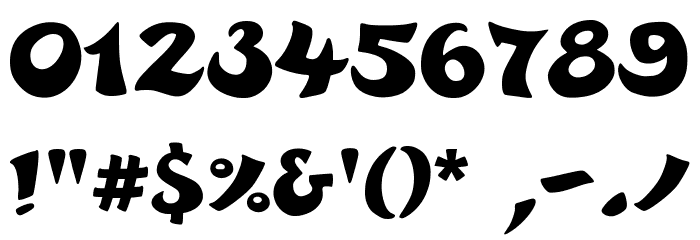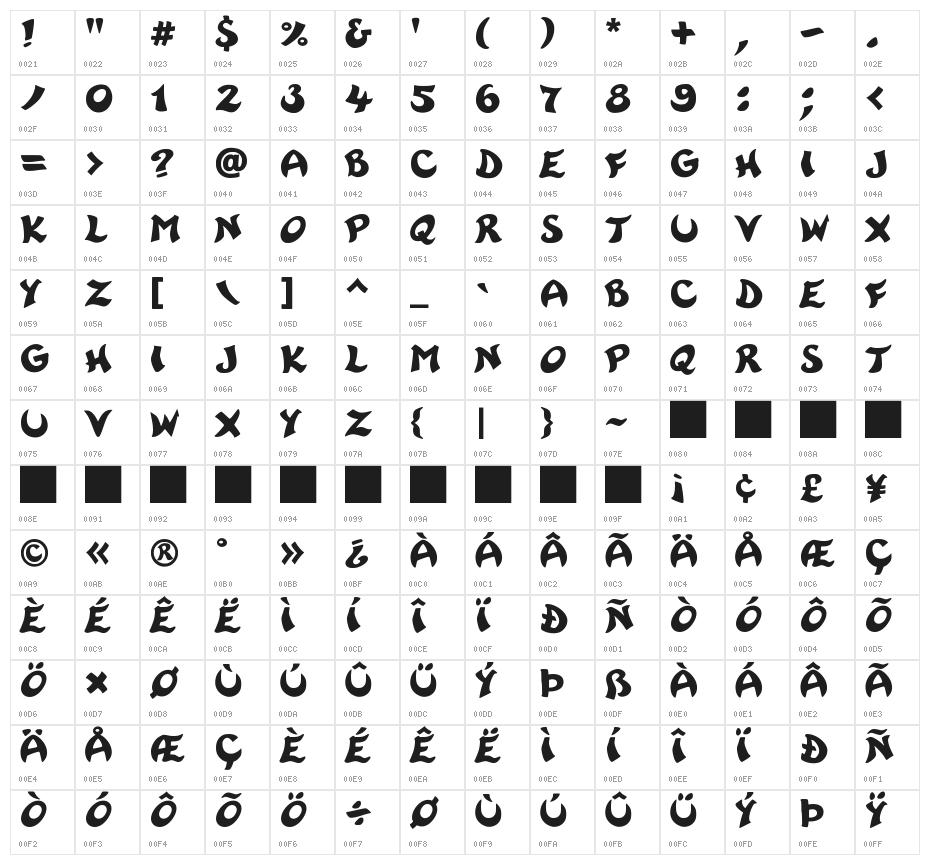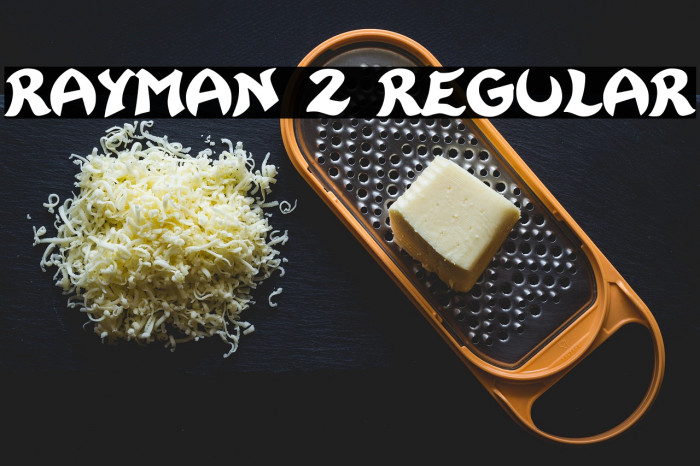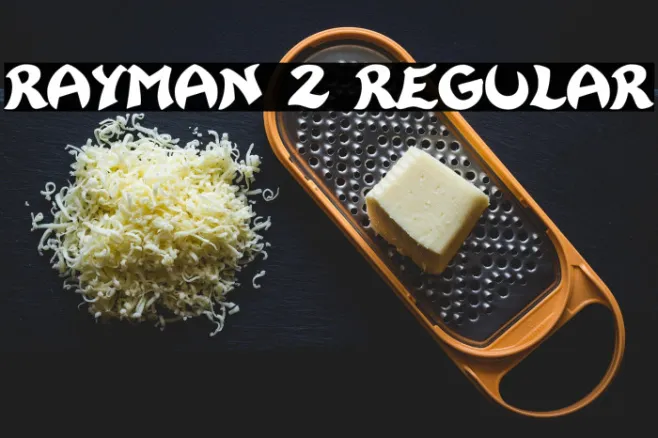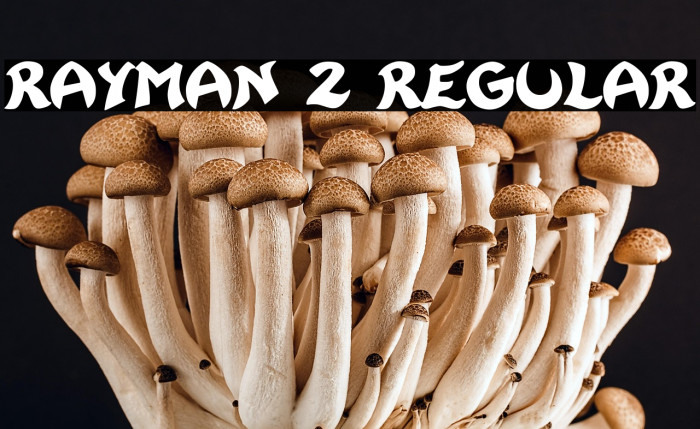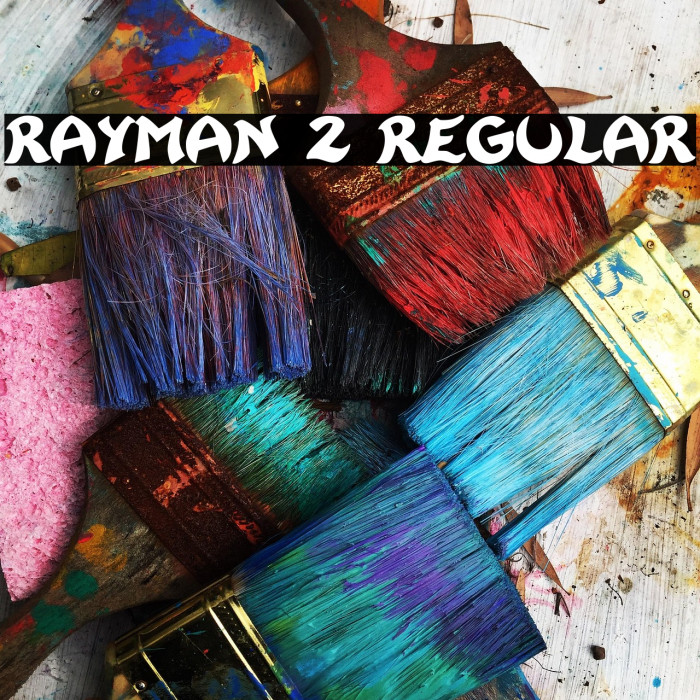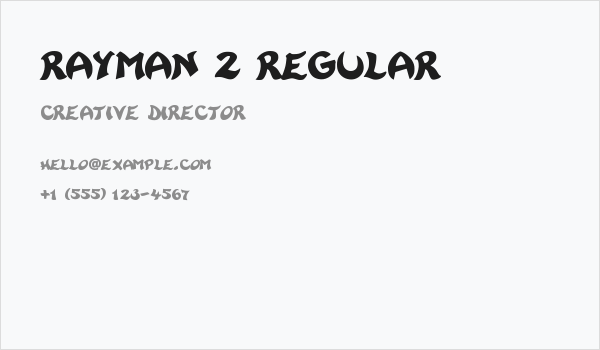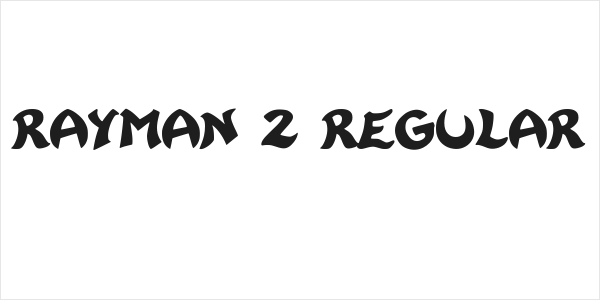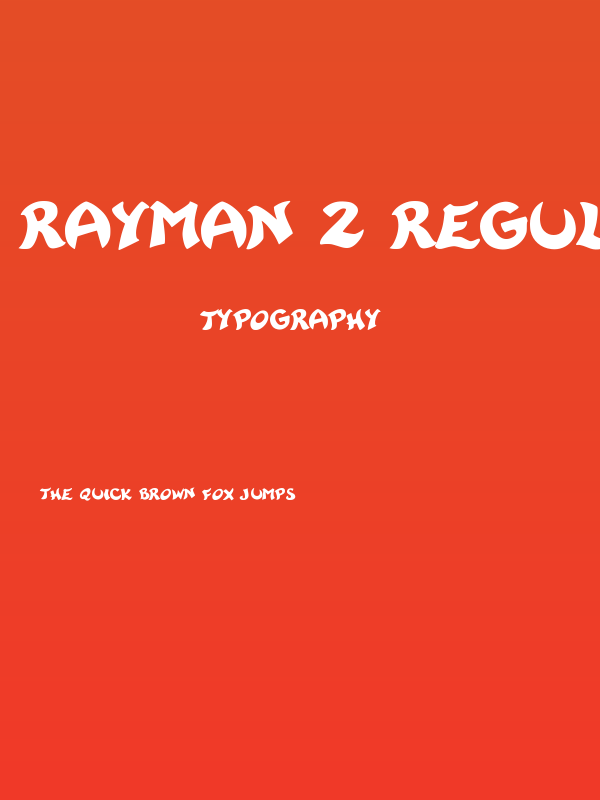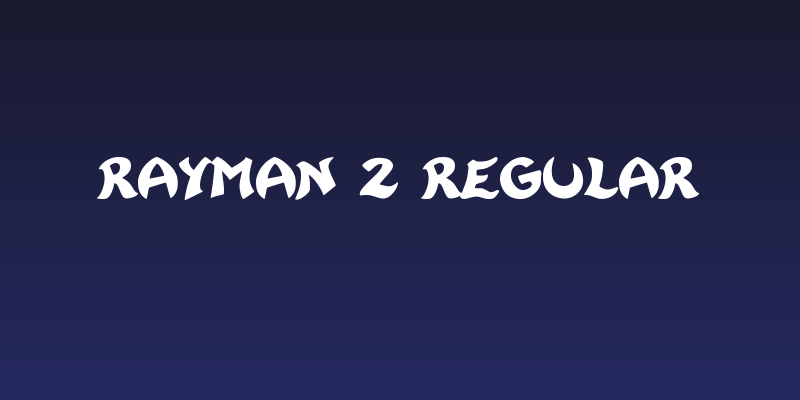
Rayman 2 Regular Font
Rayman 2 Regular Description
This font features a bold and playful style with a distinctive, whimsical flair. The characters are thick and rounded, giving them a strong presence on the page. The strokes are smooth and flowing, with a slight tilt that adds a dynamic and energetic feel. The overall design is reminiscent of cartoon or comic book lettering, making it ideal for projects that require a fun and engaging look. The numbers and special characters maintain the same playful aesthetic, ensuring consistency across all text elements.
Overall StylePlayful, Whimsical, Cartoon-like
Proposed ProjectsIdeal for children's books, comic strips, playful branding, and eye-catching posters.